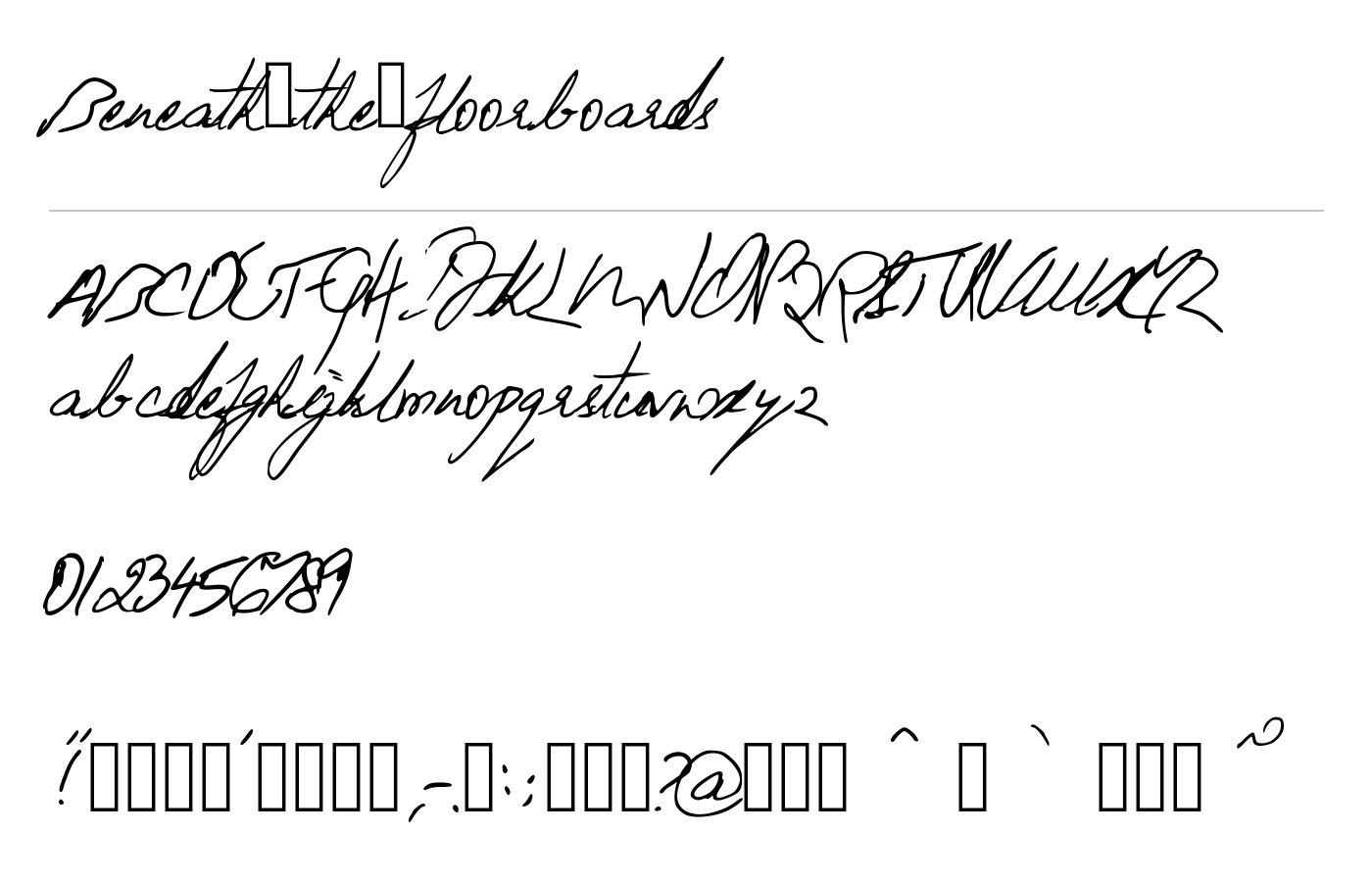
Beneath_the_floorboards is a delicate, handwritten script font characterized by its slender, flowing strokes and an intimate, organic feel. Its narrow width and lightly slanted letterforms convey a sense of personal, artistic expression, making it ideal for creative projects that seek a touch of elegance and authenticity. This font works beautifully in invitations, personal branding, and artistic editorial designs where a subtle, handcrafted atmosphere is desired.
Beneath_the_floorboards Font
About Beneath_the_floorboards Font